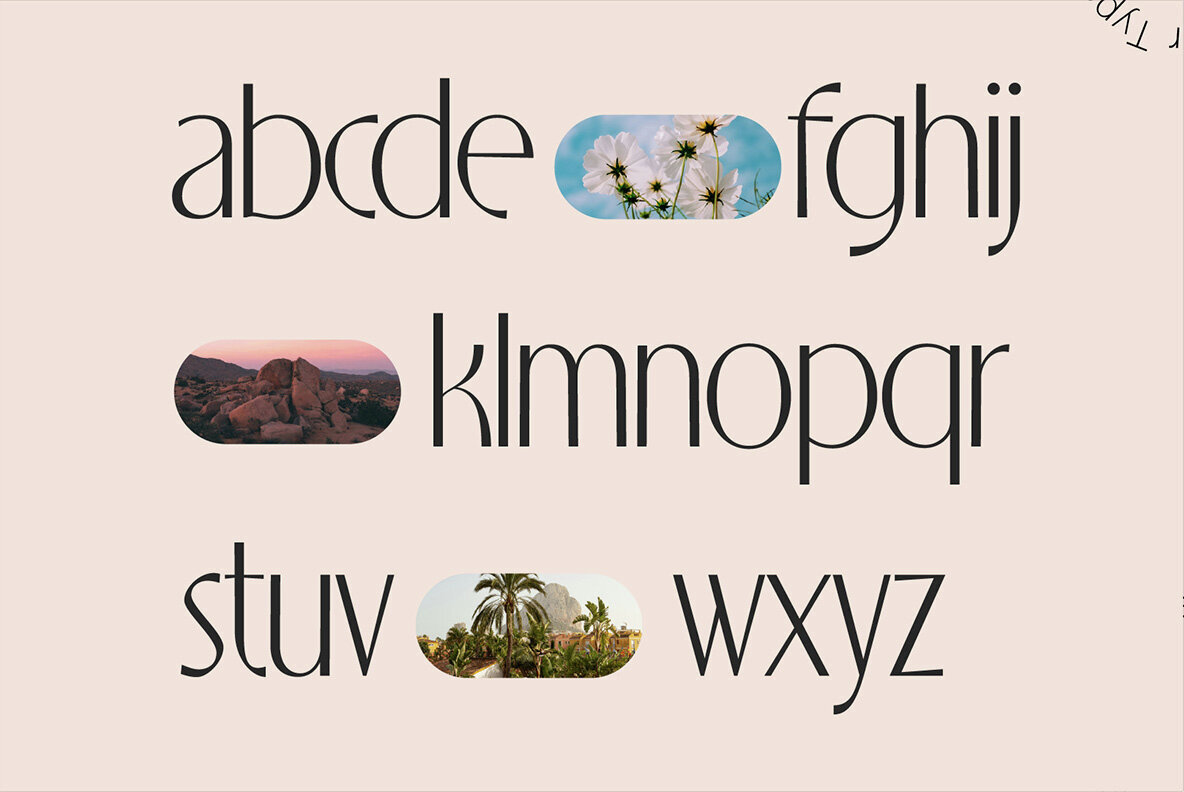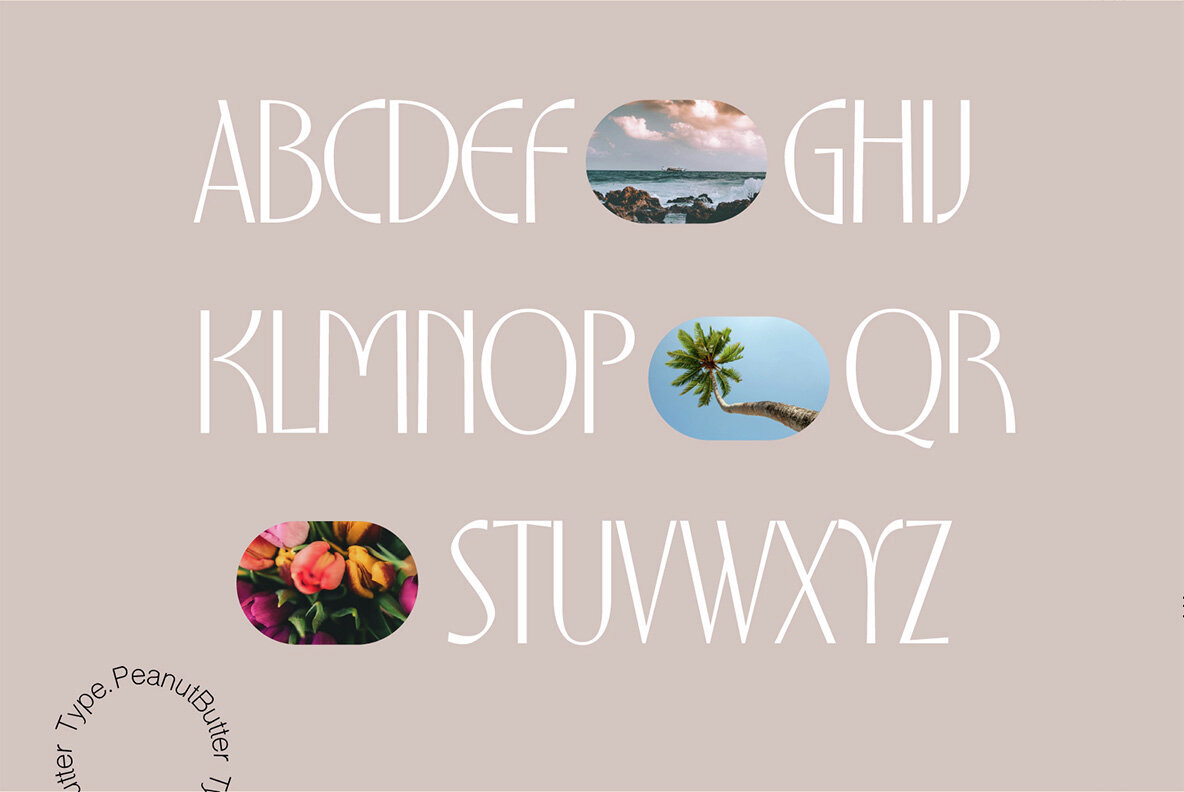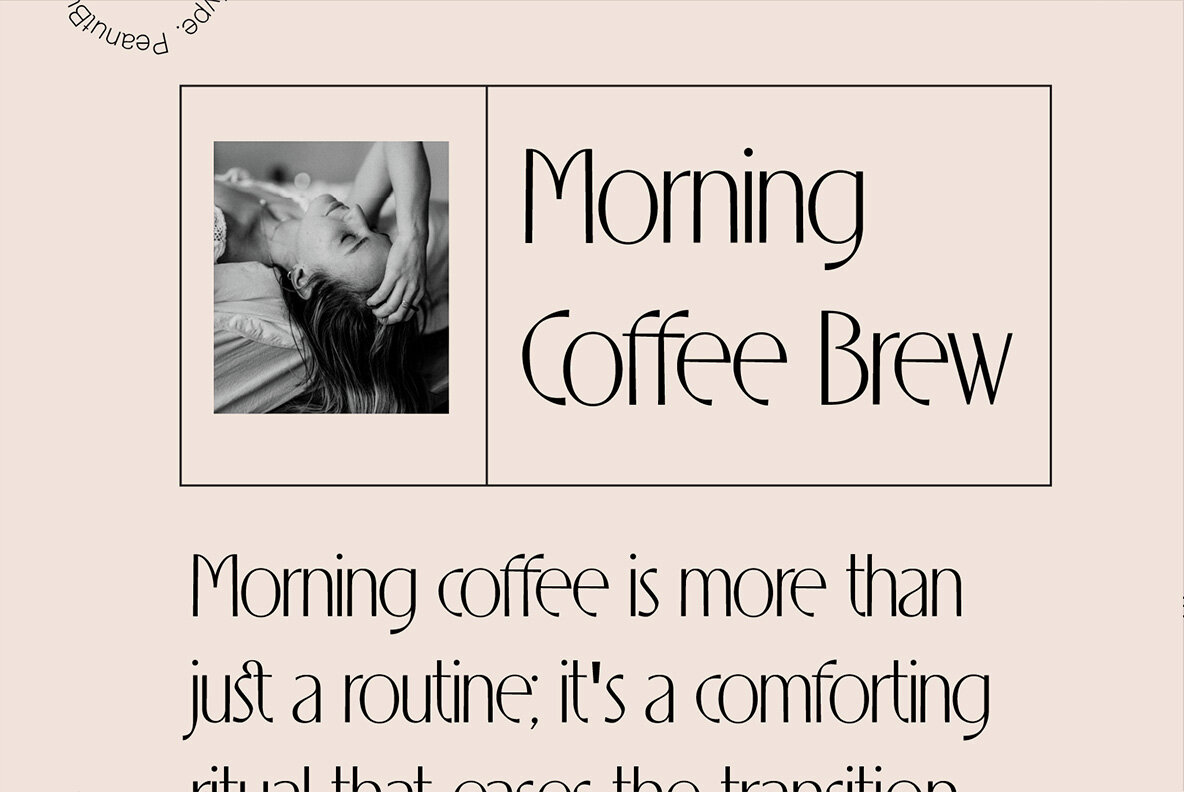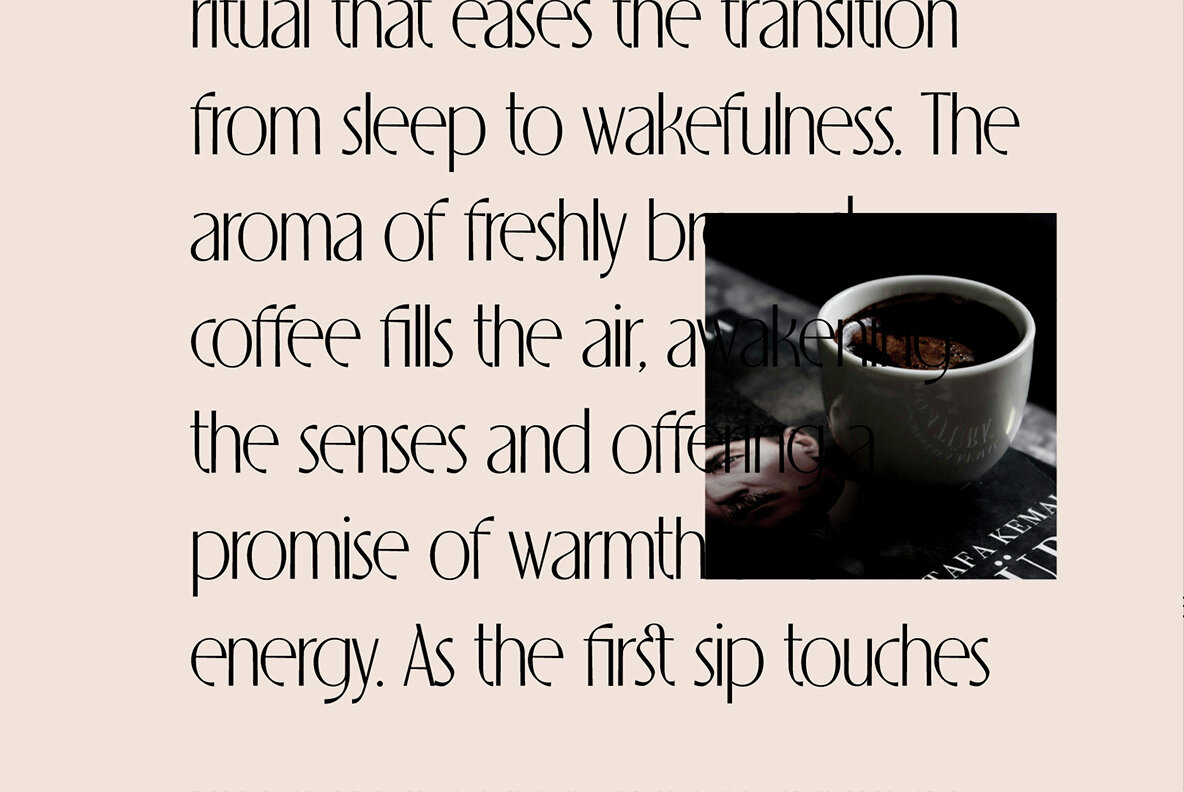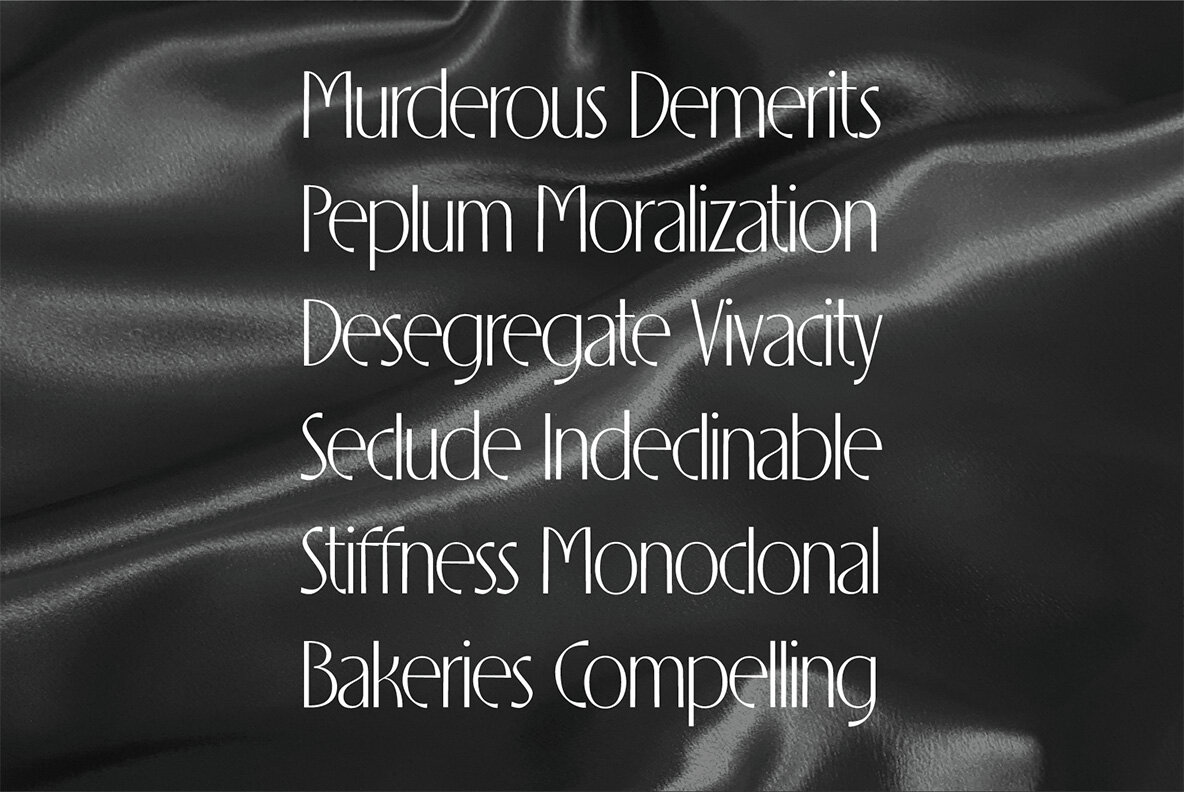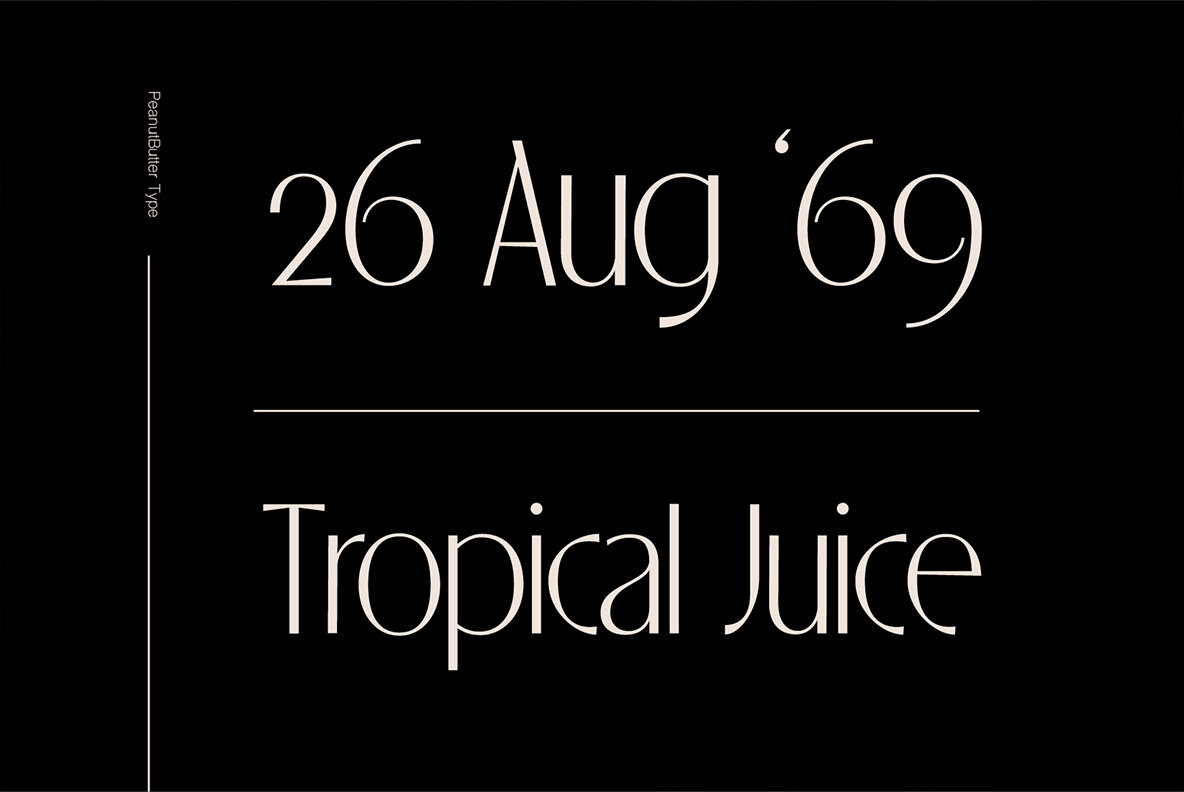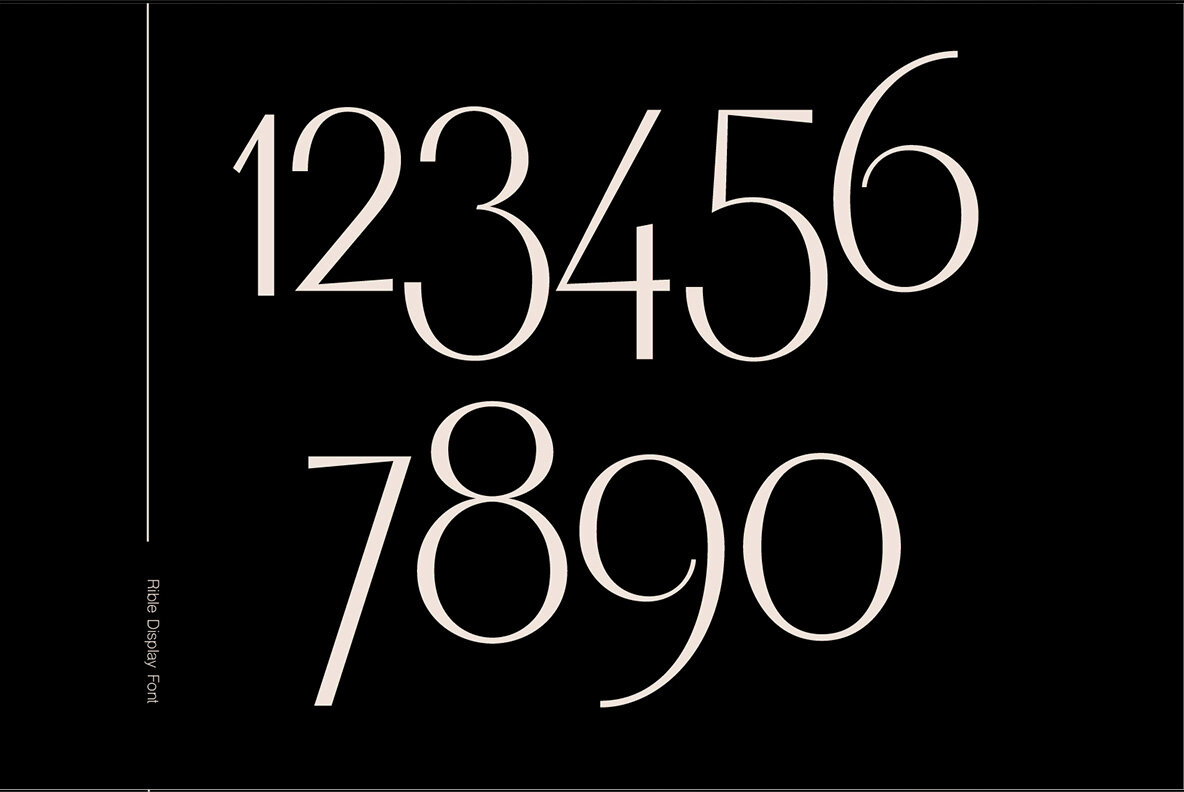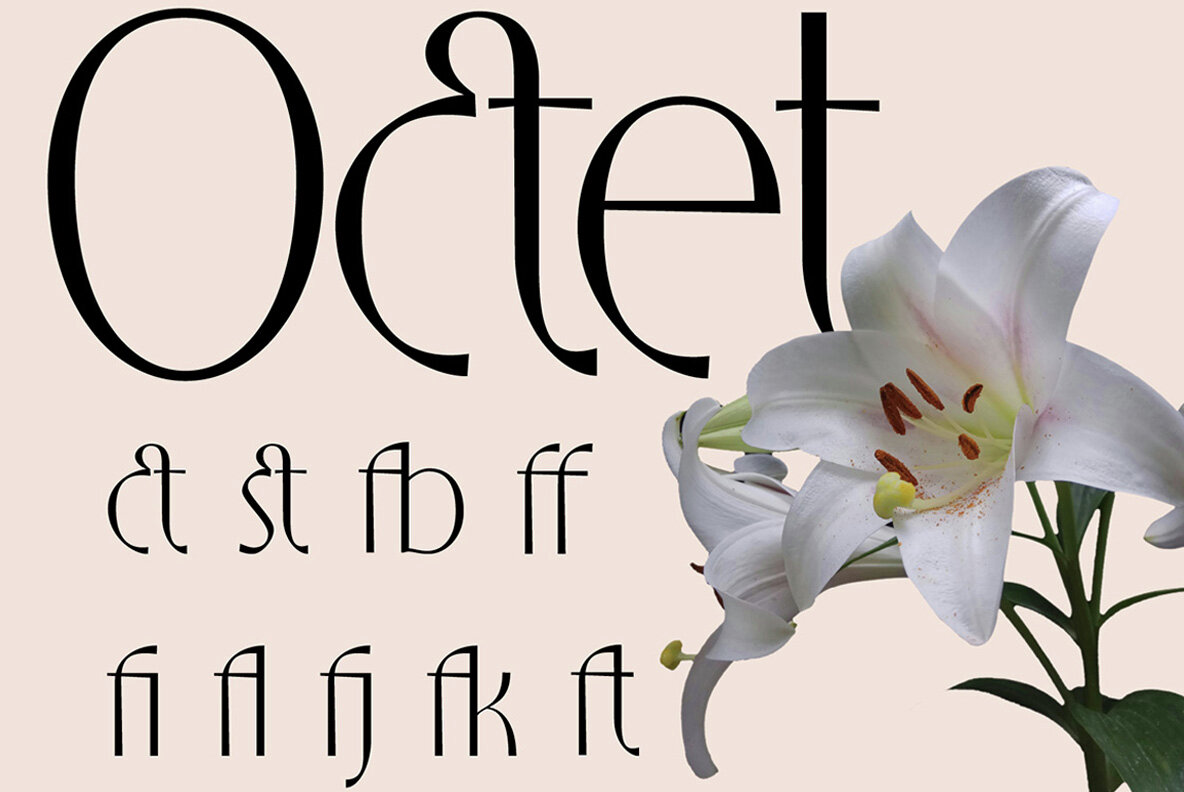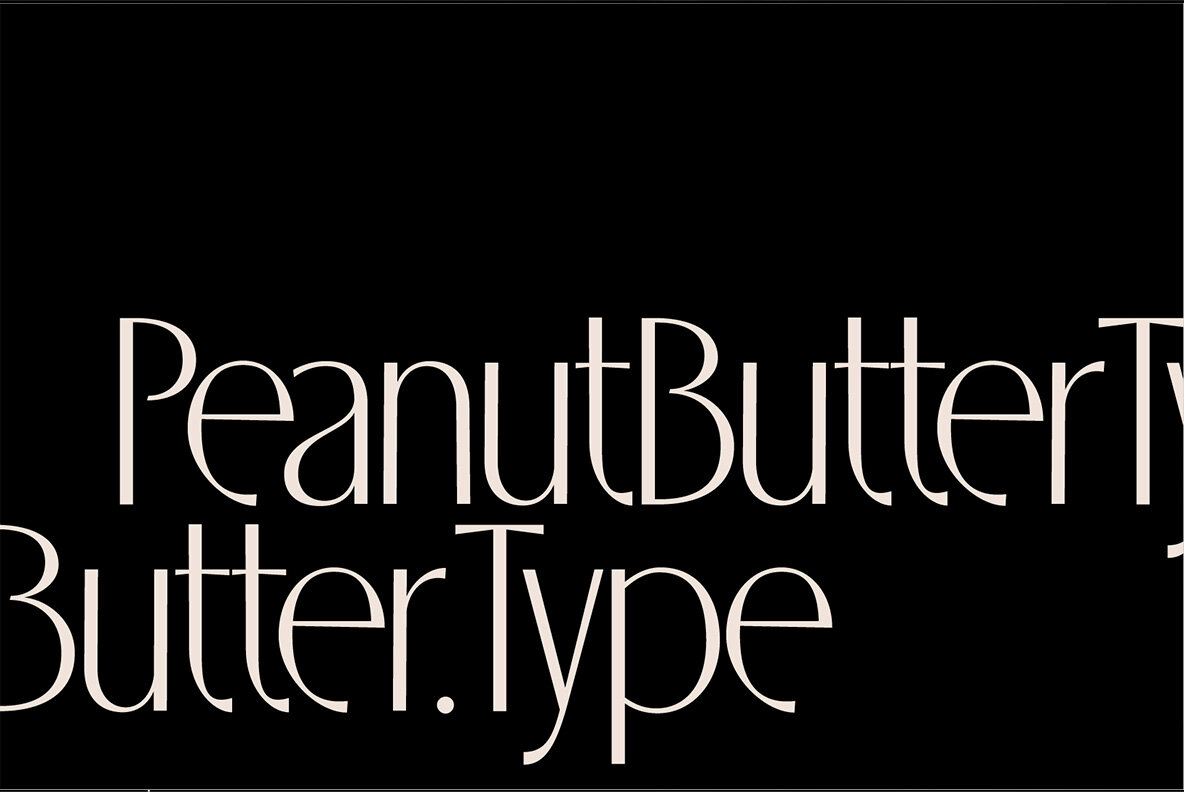
Rible Font
Rible Regular
Introducing Rible, a striking sans-serif display font that combines sleek lines with modern elegance. Designed to captivate, it is perfect for headlines, logos, and any project requiring a bold, stylish statement. Rible's clean and contemporary aesthetic ensures your work stands out effortlessly.
Whether you are working on digital design or print, Rible offers a versatile solution for elevating your visual content. Its refined appearance adds a touch of sophistication, making it an excellent choice for both creative and professional applications. Make a lasting impression with Rible.